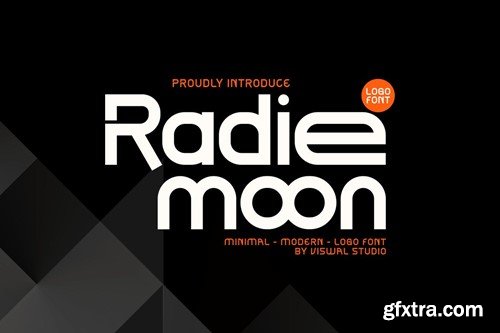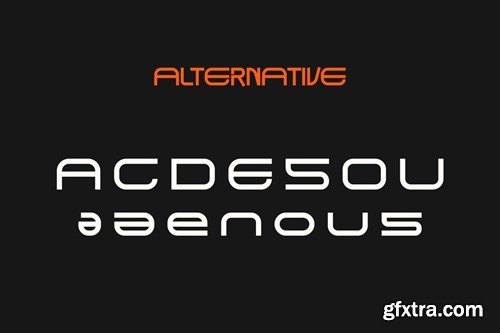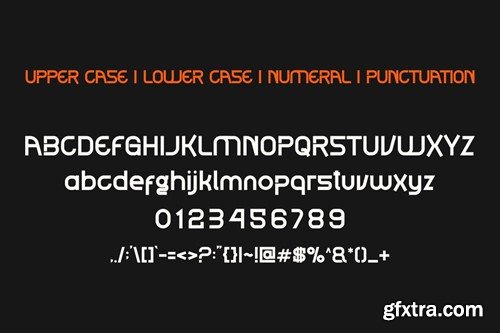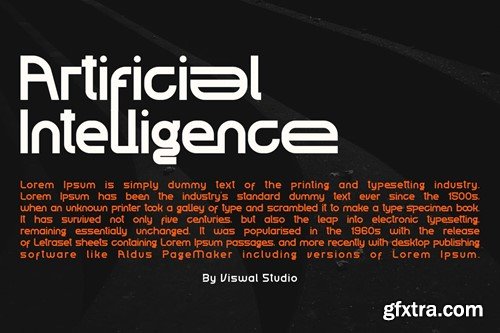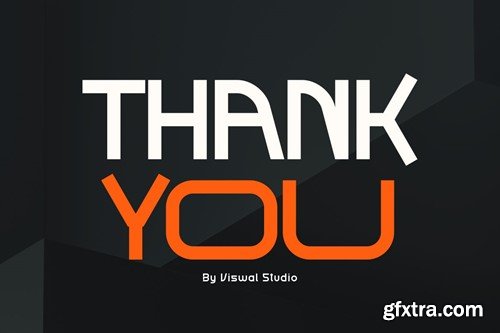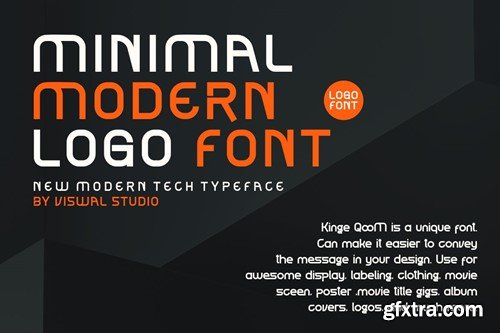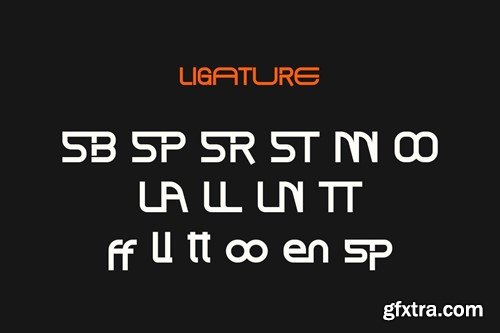
Radie Moon - Modern Minimal Font
Presenting Radie Moon - Font is suitable for badge, labels, logo, branding, magazine, poster and etc. Our fonts have Uppercase & Lowercase, Numeral & Punctuation, Multilingual support and Opentype Features. For Amazing designs you can mix with other fonts as a complement. File Includes Happy creating with our fonts. Regards, viswal studios